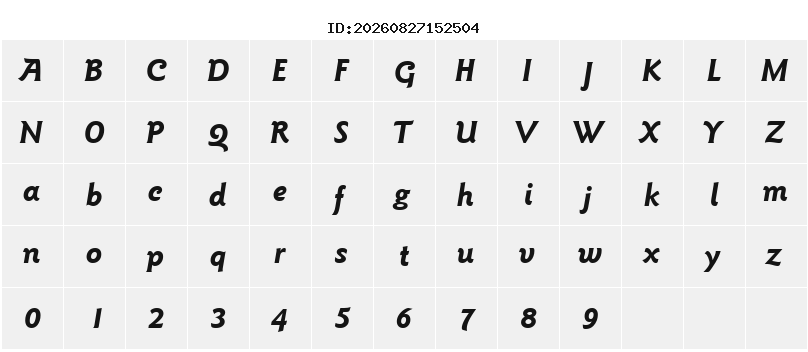
About 077-CAI978.ttf
077-CAI978.ttf is a modern, elegant sans-serif font designed for ultimate readability and visual harmony. Perfect for branding, headlines, web design, and print materials.